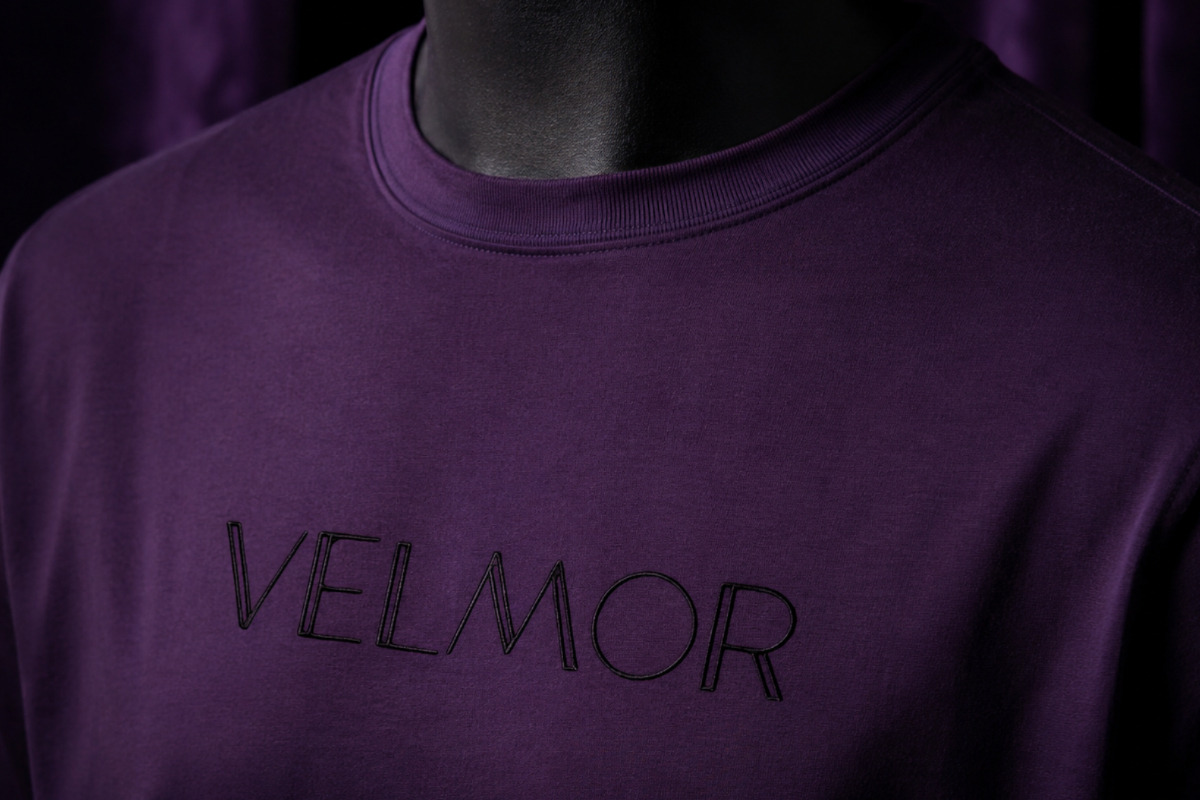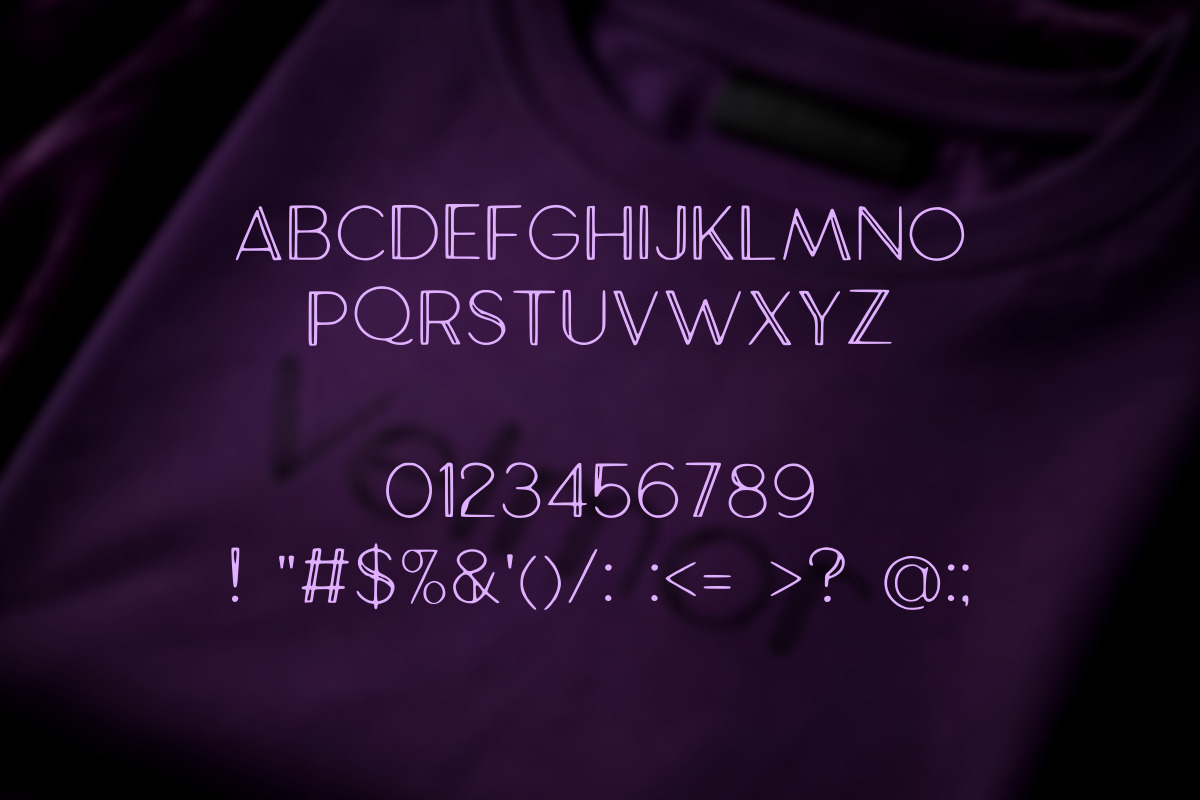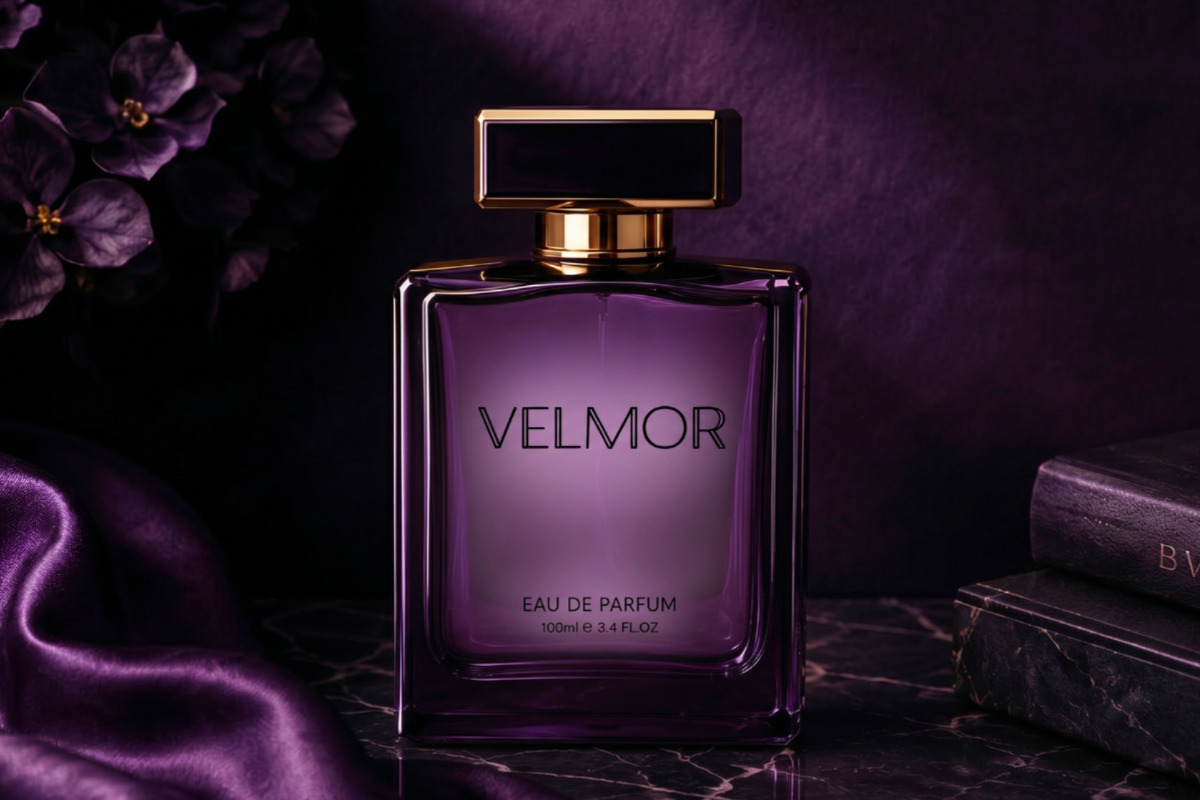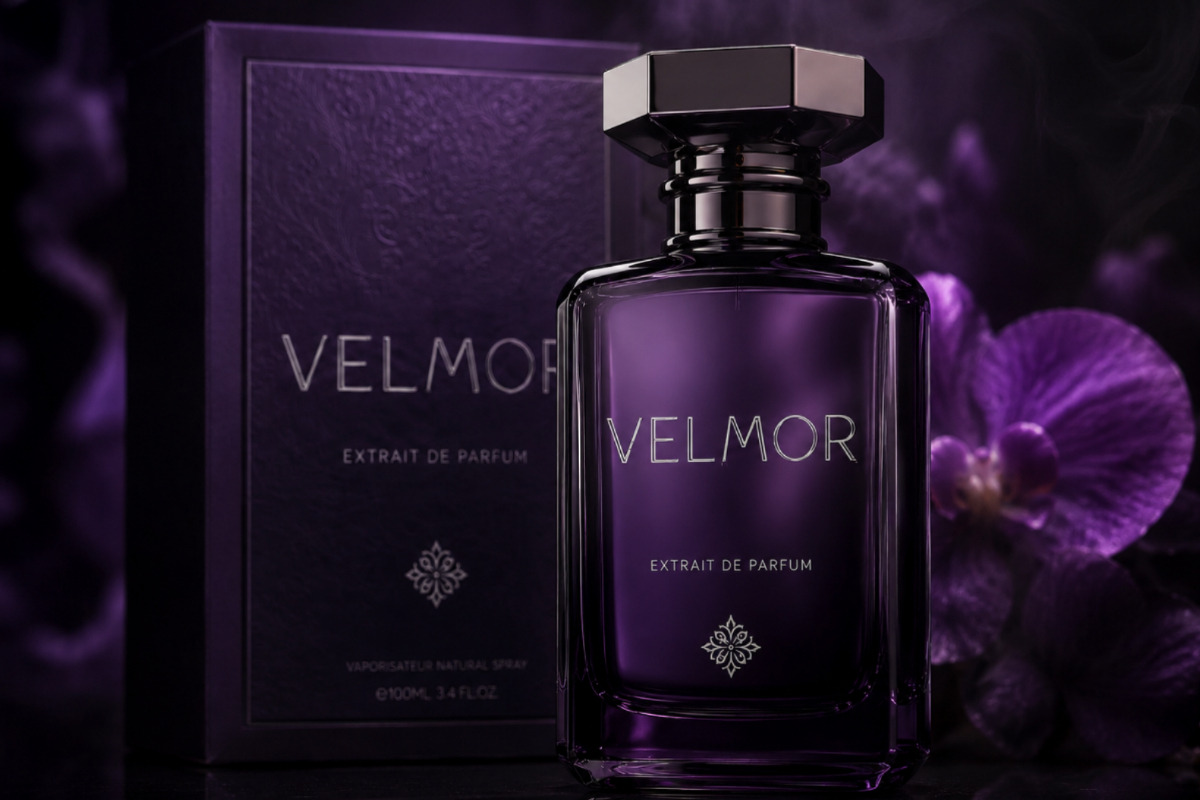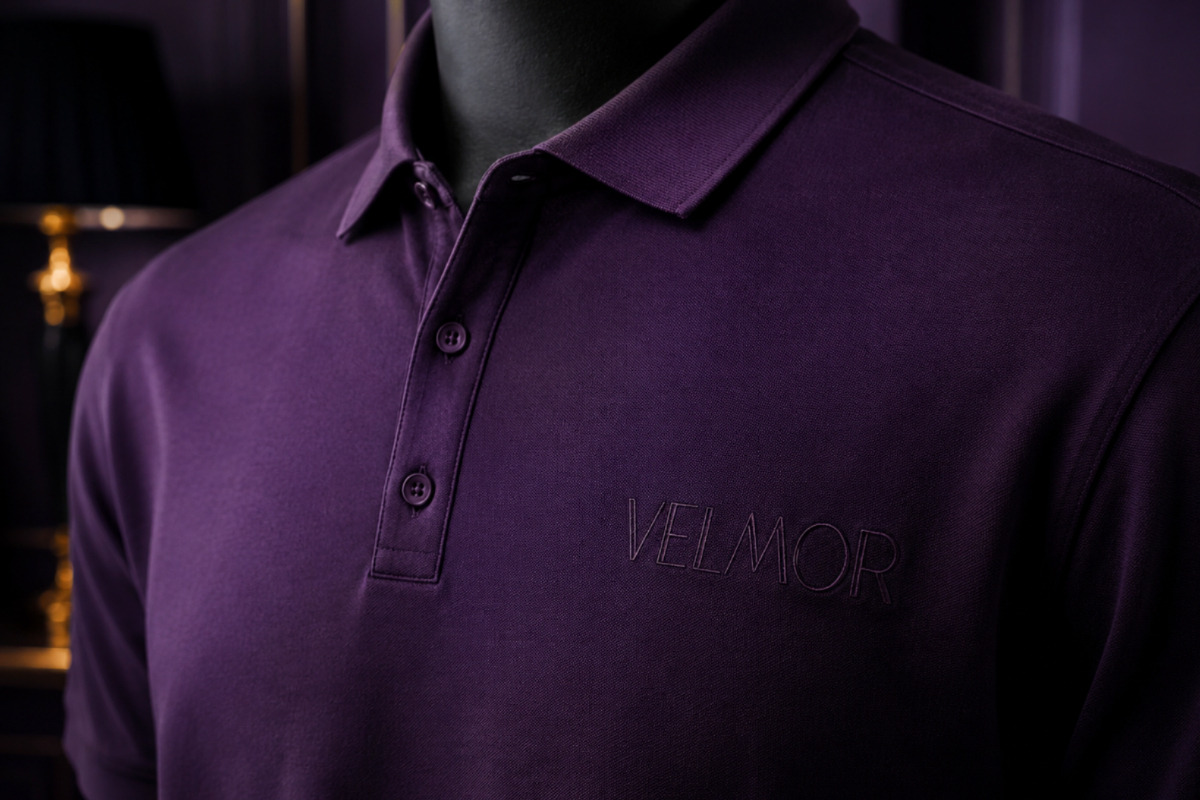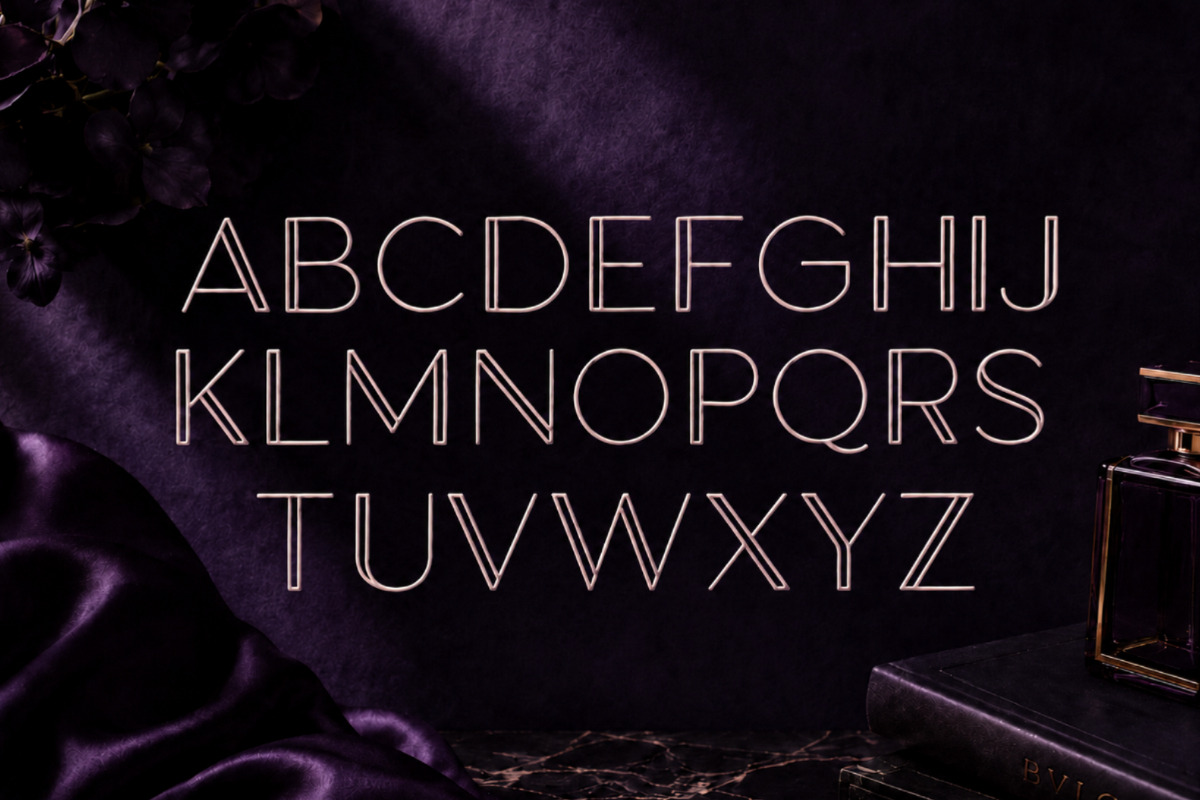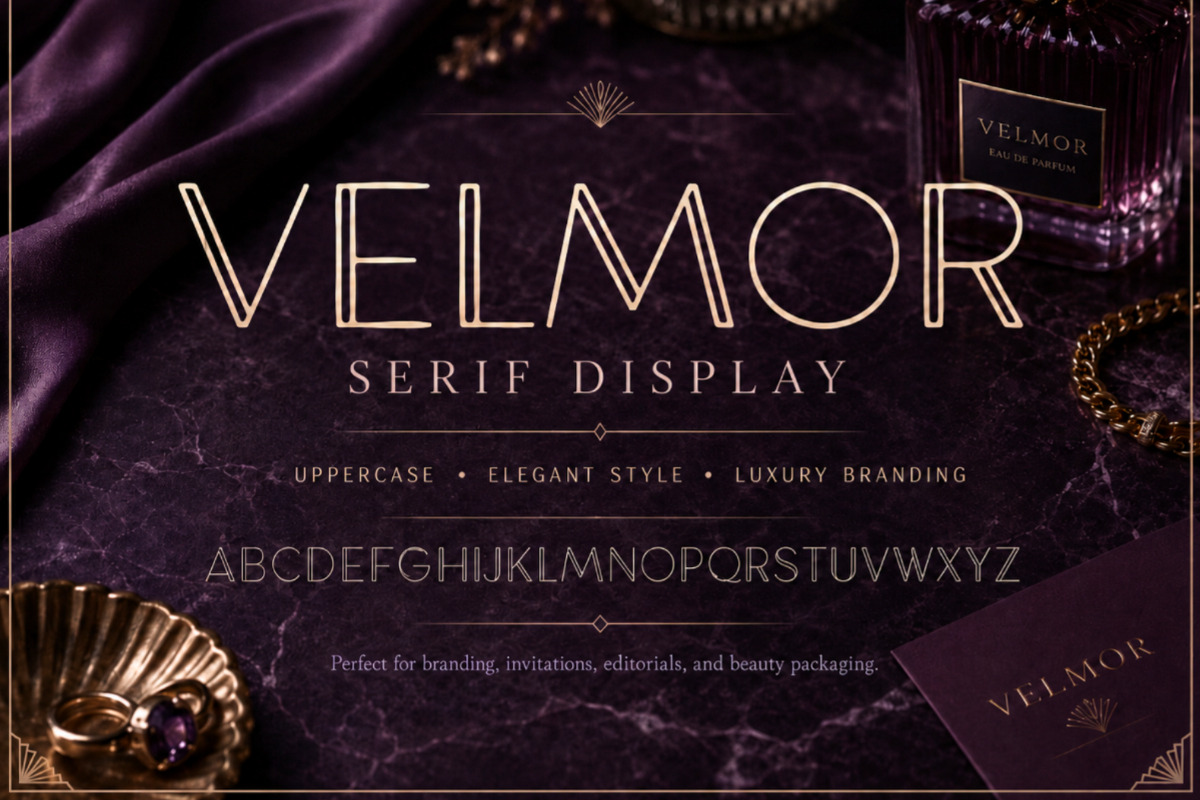
Velmor Luxury Serif Display Font
Introducing Velmor — a luxury serif inline display typeface designed to command attention and elevate your branding. Created exclusively in uppercase, Velmor’s defining feature is its distinctive inline double-stroke letterforms. Two precise, parallel lines run through each character to create a sense of visual depth and opulence that standard fonts simply cannot achieve. It is the typographic equivalent of gold filigree on black marble.
Inspired by the timeless heritage of high-end luxury — the world of classic couture, prestige jewelry houses, and grand structural architecture — Velmor brings clean, sophisticated glamour to modern design. Whether engraved on a premium perfume bottle, embroidered on luxury streetwear, or foil-stamped on minimalist packaging, Velmor announces itself with total authority.
Why Luxury Designers Love This Font:
Distinctive Inline Detail: The double-stroke inline construction creates a premium sense of dimension and craftsmanship.
Exclusively Uppercase: An all-caps design that naturally lends brand names, headlines, and wordmarks an automatic sense of exclusivity, gravitas, and structure.
Architectural Proportions: Tall, elegant letterforms with sharp, refined serifs that photograph beautifully across lifestyle and editorial spreads.
Production Ready: The optimized, thin inline weight makes it incredibly well-suited for physical production techniques including embossing, engraving, foil stamping, and embroidery.
Timeless Sophistication: Built with balanced geometric proportions that feel classic yet modern—ensuring your brand assets remain elevated for years to come.
Luxury perfume, fragrance, and Eau de Parfum labels
High-end beauty, skincare, and cosmetic packaging
Fashion and haute couture brand logos and wordmarks
Fine jewelry, watch, and luxury goods branding
Premium apparel — embroidered sweatshirts, custom caps, and streetwear
VIP event invitations, gala stationery, and premium menus
Dark, moody editorial layouts and luxury magazine mastheads
High-end hospitality, spa, and boutique hotel visual identities
Premium candle, home fragrance, and lifestyle product branding
Specialty gold foil printing and heavy-embossed packaging
All-Caps Character Set: Includes uppercase letters $A$ through $Z$. (Please note: Velmor is a deliberate, uppercase-only display font to maintain its premium, cohesive brand identity).
Numbers: $0, 1, 2, 3, 4, 5, 6, 7, 8, 9$
Punctuation & Symbols: ! " # $ % & ' ( ) / : ; < = > ? @
Single Optimized Style: Inline double-stroke serif display. No extra weights or alternate cuts are required—the core design delivers maximum luxury impact right out of the box.
- Does Velmor have lowercase letters?
- No — Velmor is an uppercase-only font. It contains A–Z uppercase letters only, with no lowercase characters. This is a deliberate design decision: the all-caps constraint is what gives Velmor its authority, exclusivity, and Art Deco character. Luxury brands like Chanel, Dior, and Cartier famously use all-caps wordmarks for exactly this reason. If you type in lowercase, the uppercase characters will display — everything stays in caps automatically.
- What is the inline double-stroke detail?
- The inline effect is a defining feature of Velmor — each letterform is drawn with two parallel lines running through it, creating the appearance of depth and dimension within the stroke. This gives the font a three-dimensional, engraved quality that makes it look exceptional on perfume bottles, embossed packaging, foil print, and embroidered apparel. It is what separates Velmor from any standard serif or sans-serif font.
- What punctuation and symbols are included?
- Velmor includes the following punctuation and symbols: ! " # $ % & ' ( ) / : ; < = > ? @ — covering essential characters for brand names, product labels, taglines, and editorial headlines.
- Does this font include multiple weights or styles?